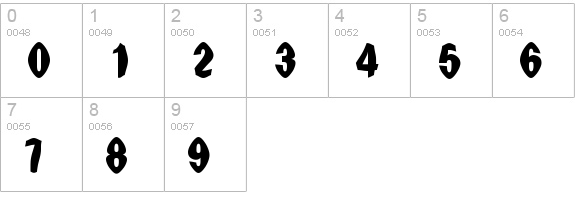
Punch Drunk Font Details
Punch Drunk font is a bold and energetic typeface that packs a powerful punch with its distinctive and dynamic design. With its playful and whimsical appearance, Punch Drunk font is perfect for making a statement and adding a touch of fun to any project. Whether you're creating eye-catching headlines, posters, or branding materials, this versatile font will surely leave a lasting impression. The best part? Punch Drunk font is available for free download at FontsMarket.com. Don't miss out on the opportunity to add this unique and expressive font to your collection today!